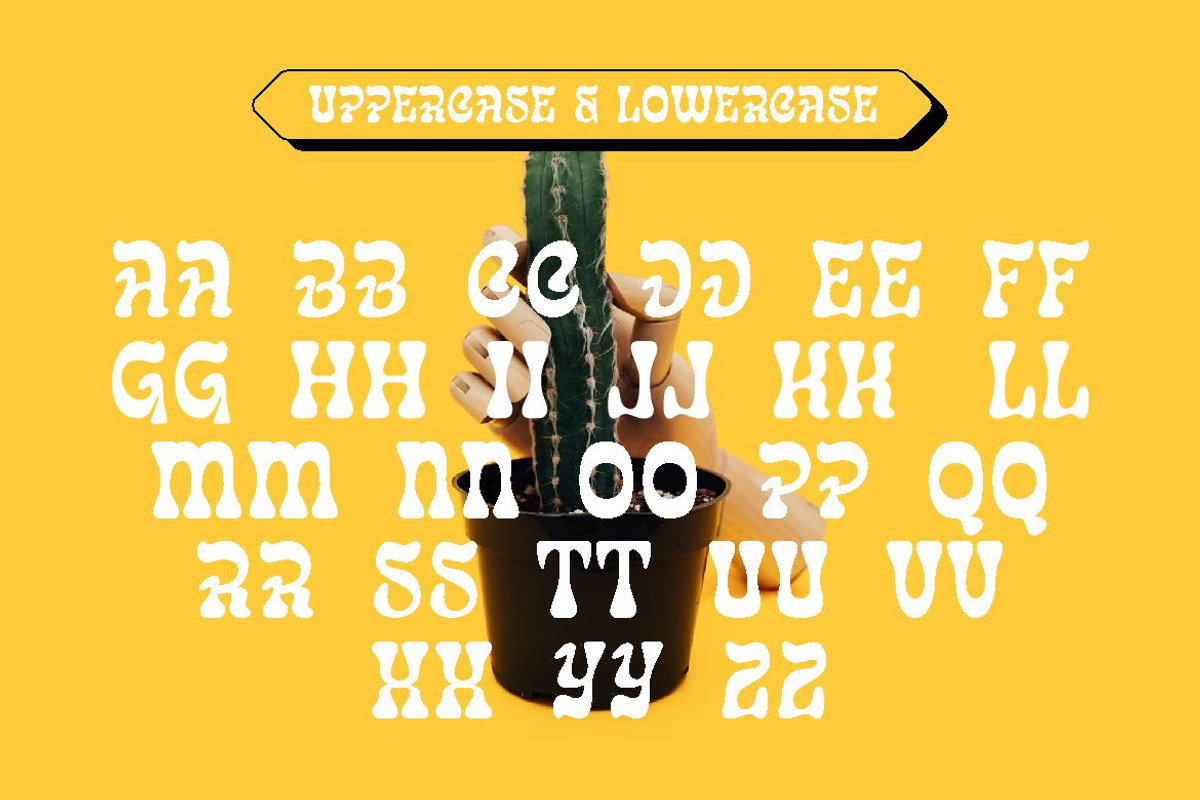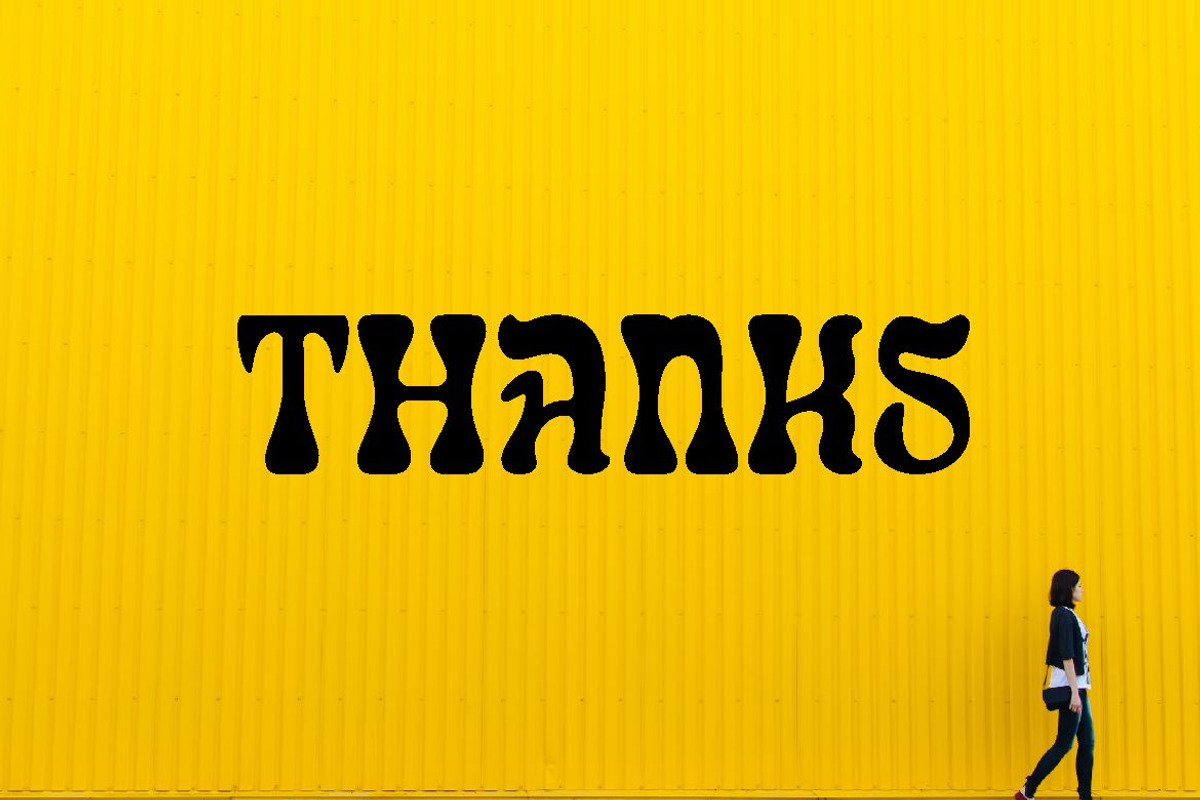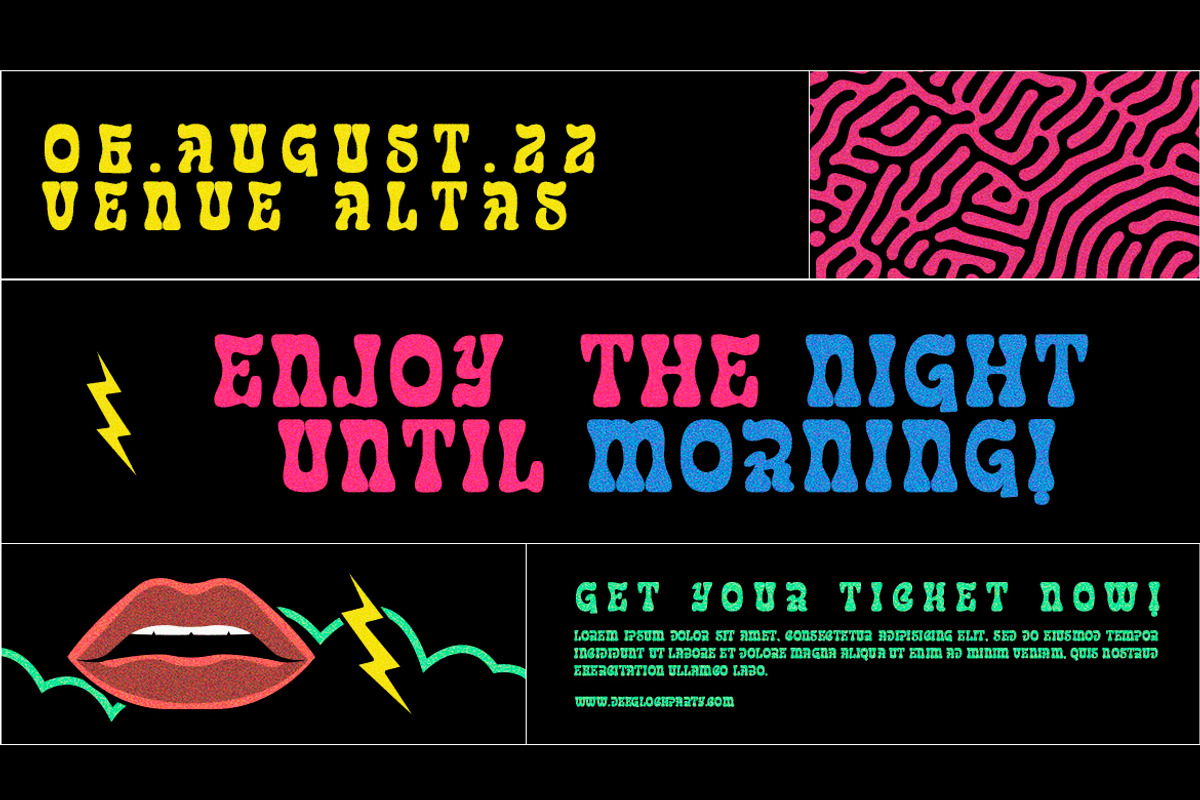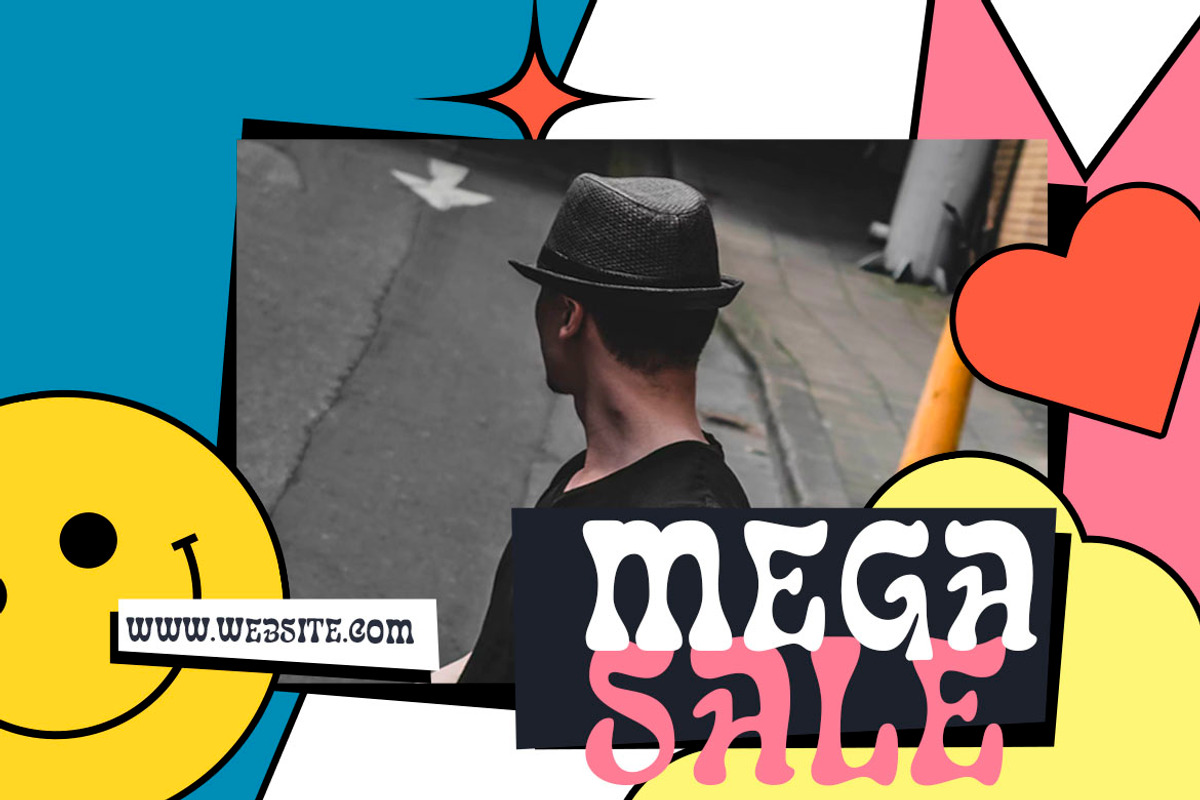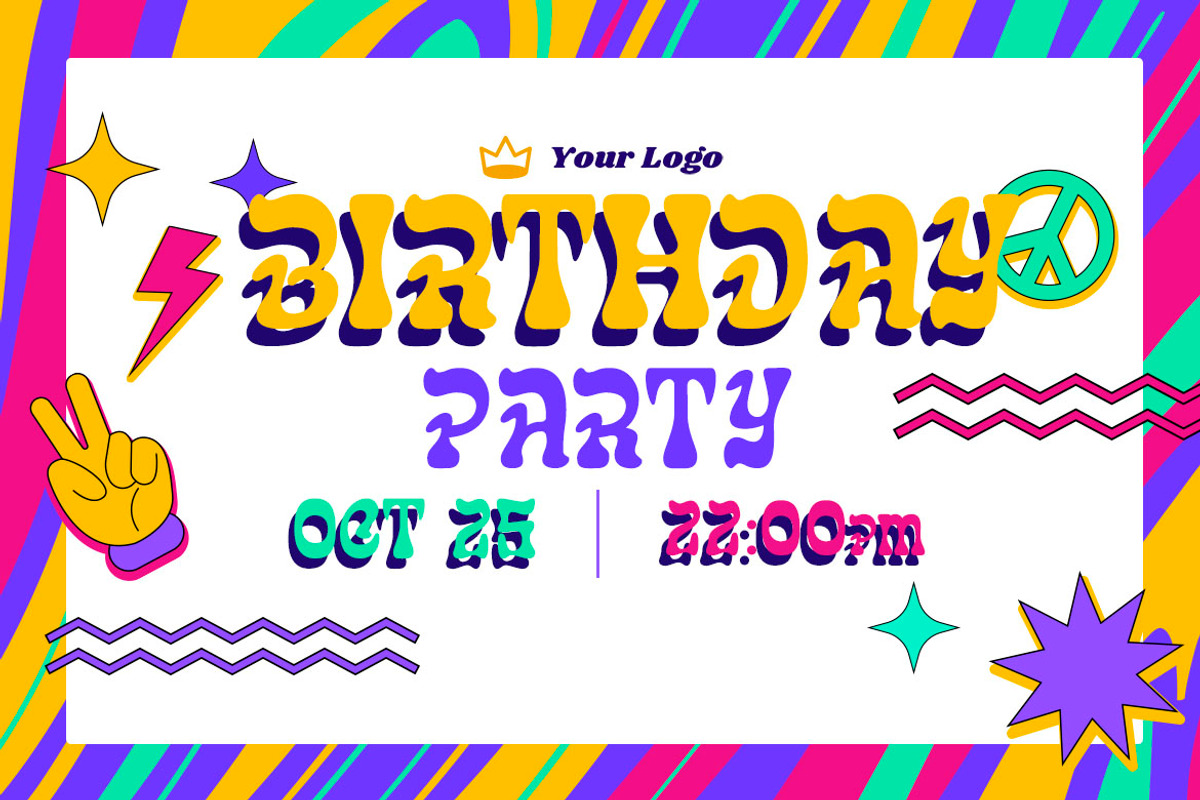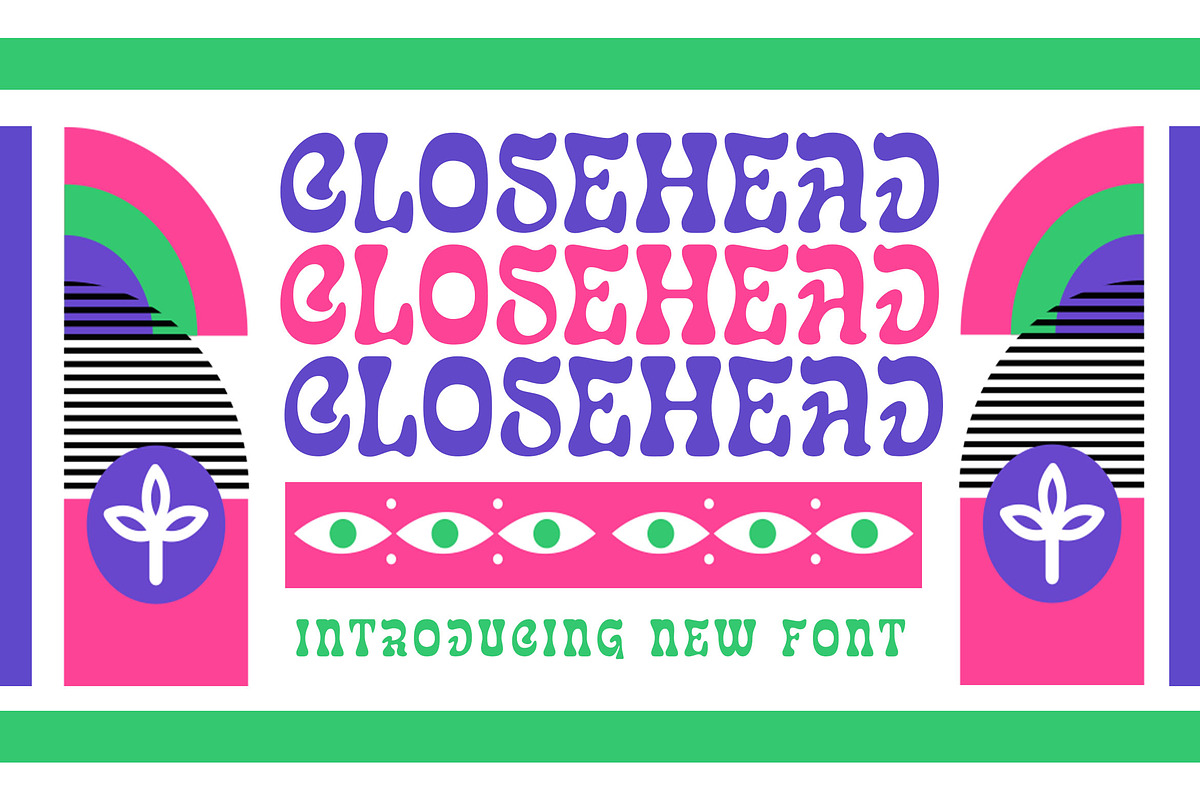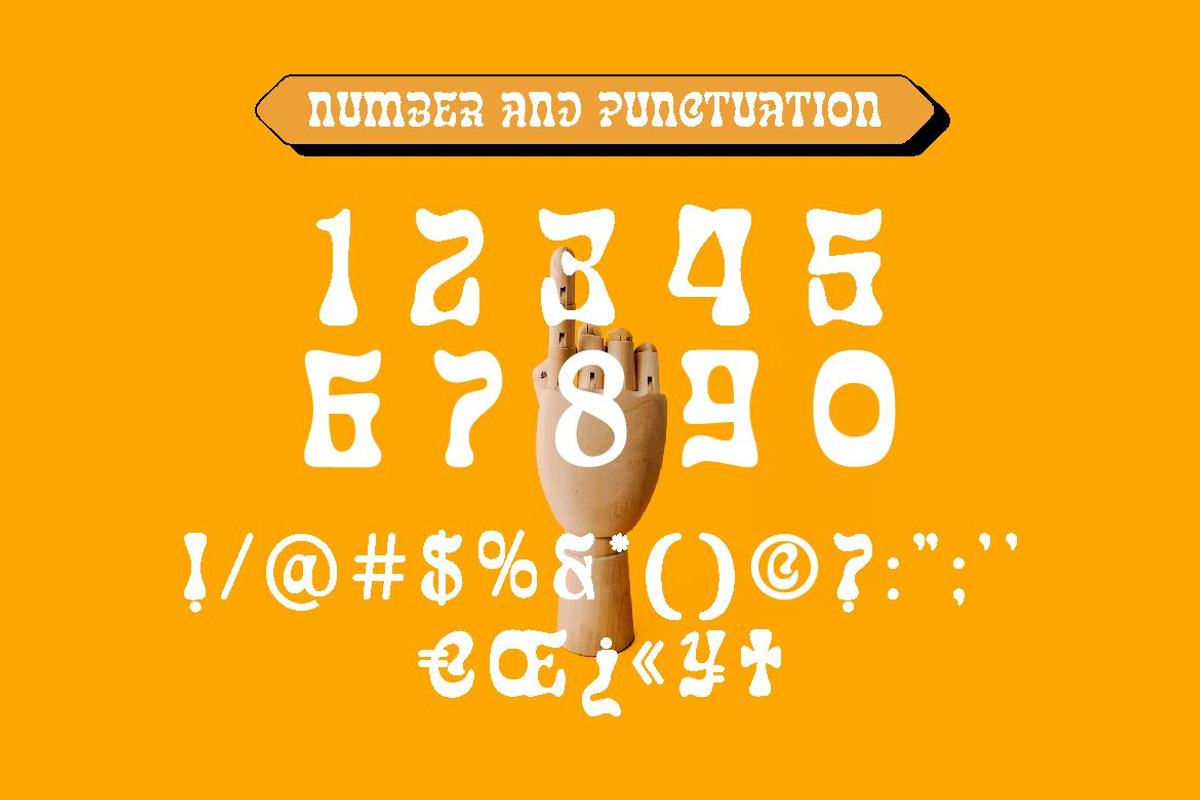
Closehead
Closehead font is a retro groovy display font. Use this display font to add that special retro touch to any design idea you can think of!. Masterfully designed to become a true favorite, this font has the potential to bring each of your creative ideas to the highest level!